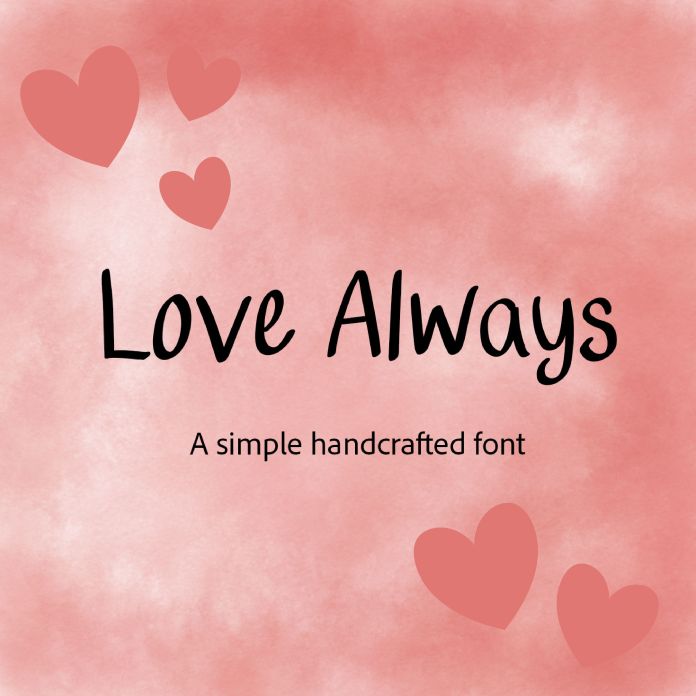
Love Always is a charming, handwritten font designed to capture a romantic and girly vibe with its simple, semibold strokes. Perfect for adding a touch of personality and warmth, this versatile Silhouette craft font is ideal for a variety of creative projects. Love Always includes the most common punctuation marks, ensuring seamless usability for both personal and professional designs. As a bonus, the font also features unique, playful glyphs to add flair and creativity to your work.
Whether you're designing wedding invitations, greeting cards, logos, or social media graphics, Love Always brings a soft, feminine charm to any project. Its clean yet artistic style makes it a favorite for crafters, bloggers, and designers looking to evoke romance and elegance.